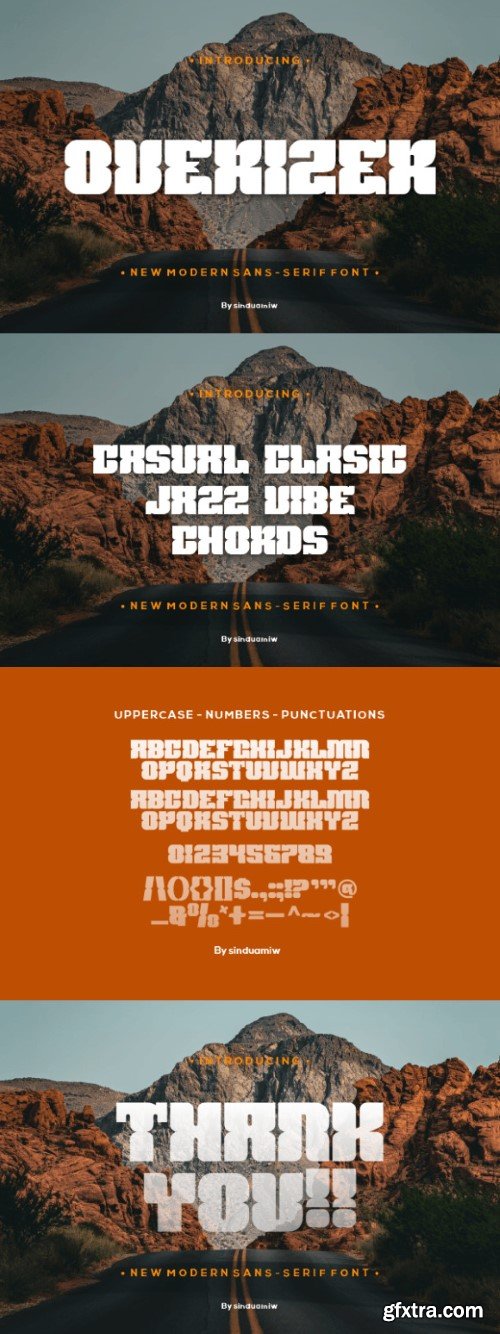
奥弗泽字体
Overizer is a cool and unique sans-serif display font that exudes modernity and creativity. With its sleek lines and distinctive characters, it captivates attention and adds a touch of edginess to any design. Ideal for headlines, logos, and branding projects, Overizer makes a bold statement with its contemporary style.